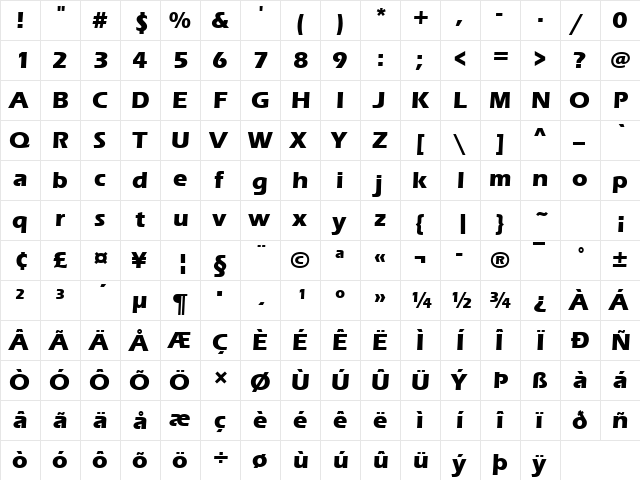
Eras Bold ITC Regular
Design Context for Eras Bold ITC Typeface
Eras Bold ITC is a composed and adaptable typeface that performs quietly and consistently across a wide range of design contexts. Its bold stroke weight gives it real presence on the page.
Pro Tip: Pair Eras Bold ITC with a font of contrasting weight or personality to build a more expressive typographic hierarchy.